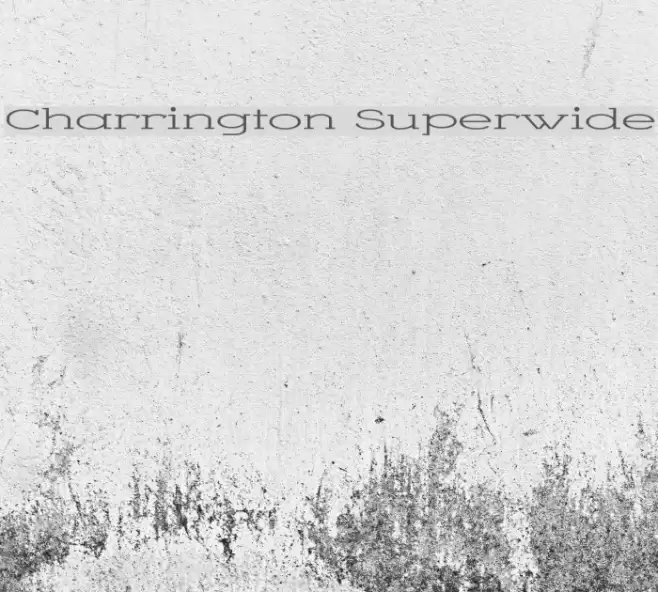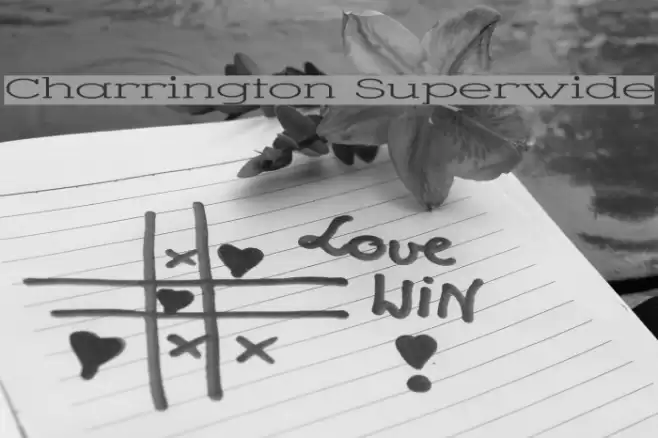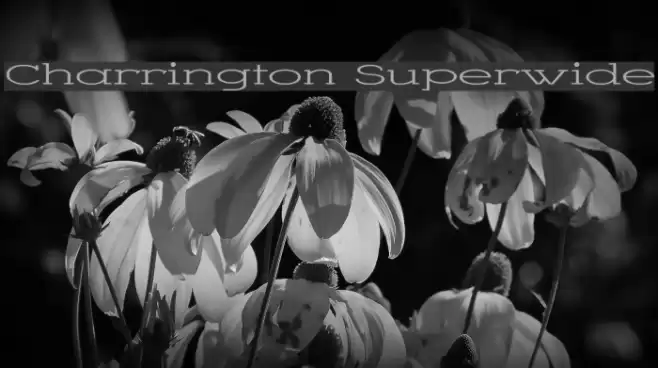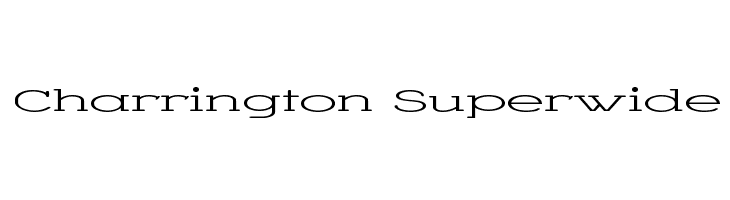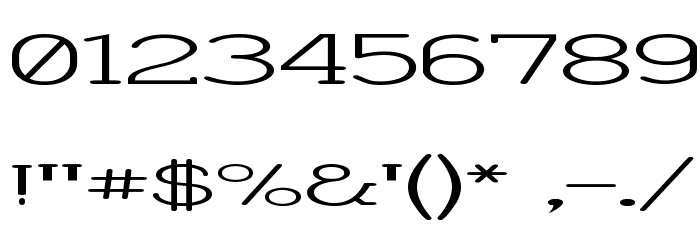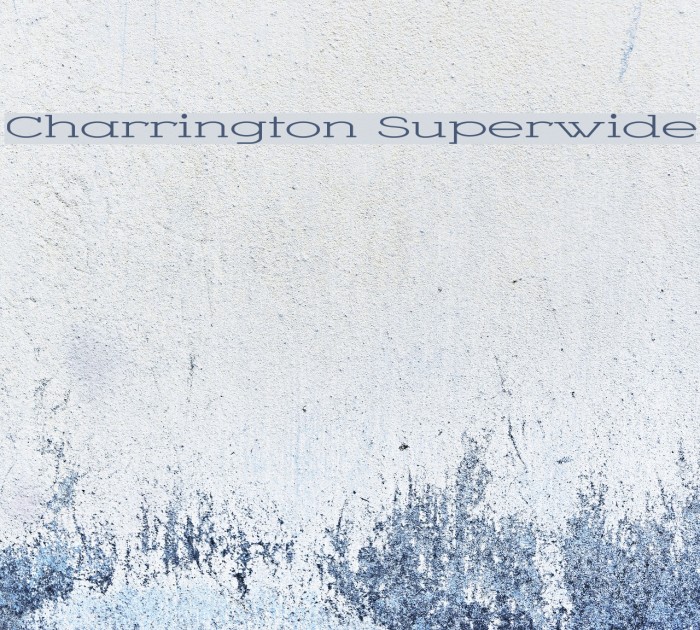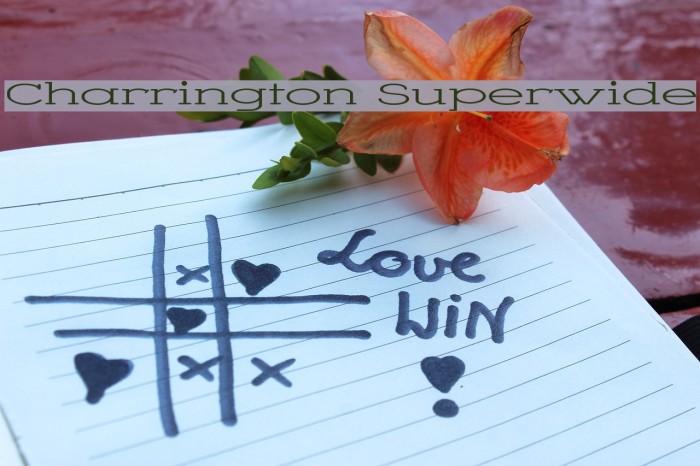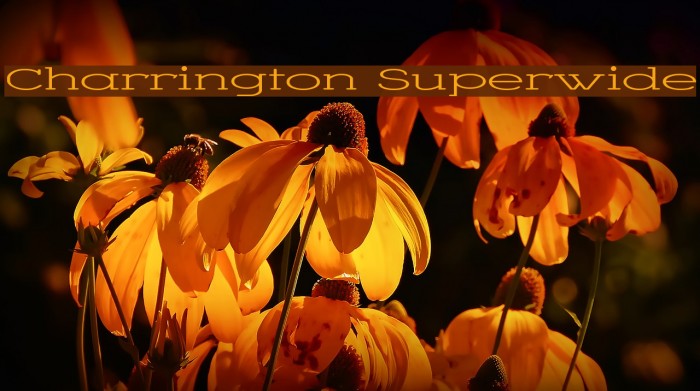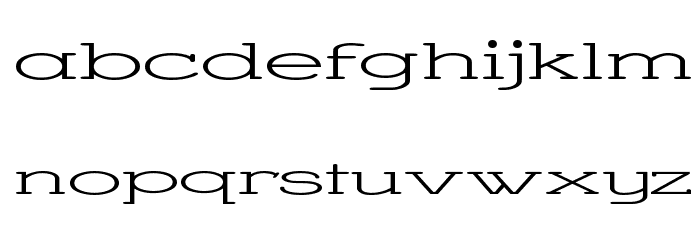
Charrington Superwide Font
Charrington Superwide Description
This font features a distinctive and elegant design, characterized by its wide letterforms and clean lines. The uppercase letters are bold and commanding, while the lowercase letters maintain a consistent flow with rounded edges. The numerals are clear and easily readable, complementing the overall aesthetic. Special characters are designed with precision, adding to the font's versatility. The font's modern style makes it suitable for a variety of applications, from branding to editorial design.
A wide, elegant font with clean lines and modern style from Formal fonts.
- Proposed Projects: Ideal for branding, editorial design, advertising, and signage.
- Width: Expanded
- Use Case: Headlines, Logos, Branding